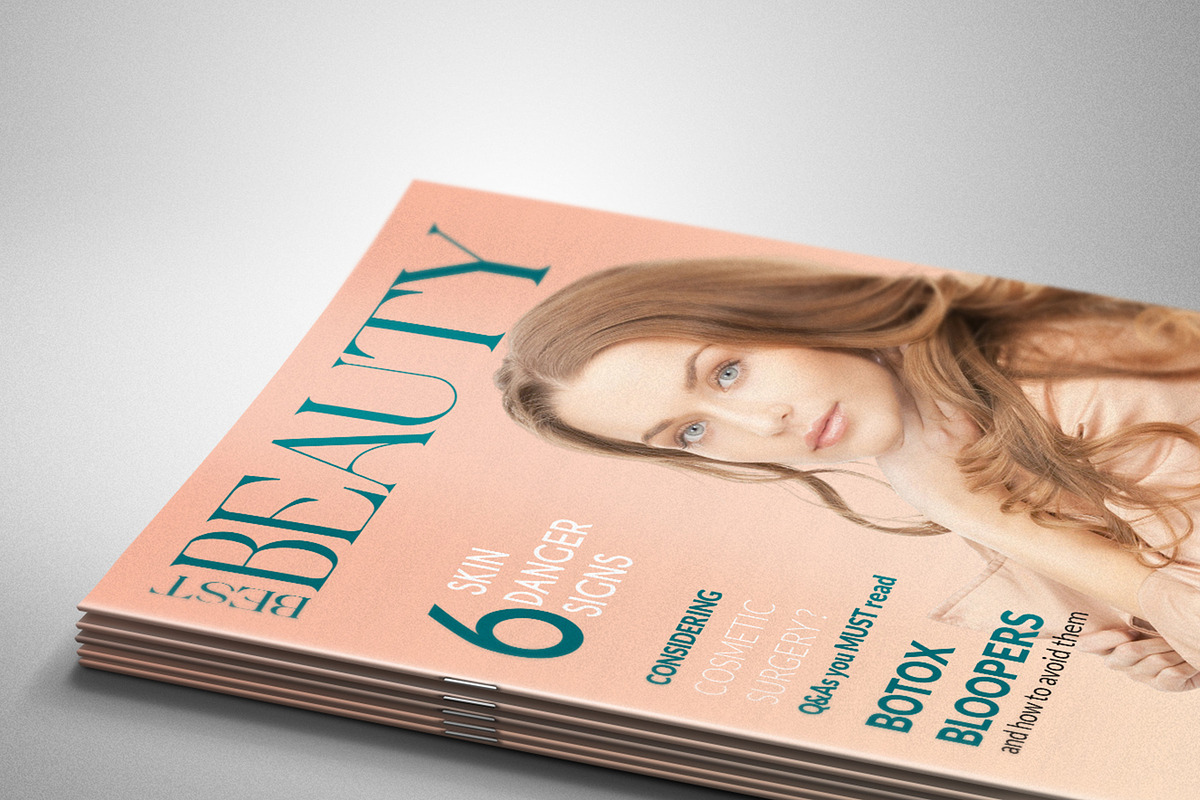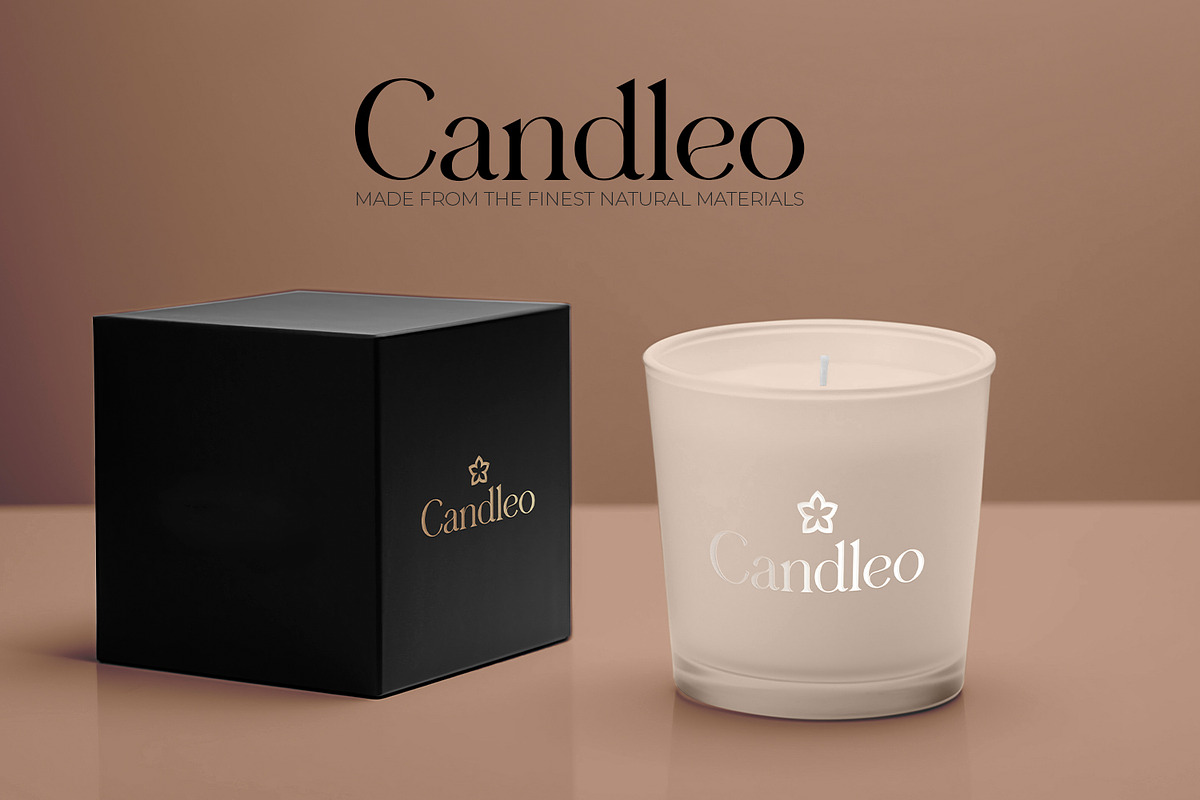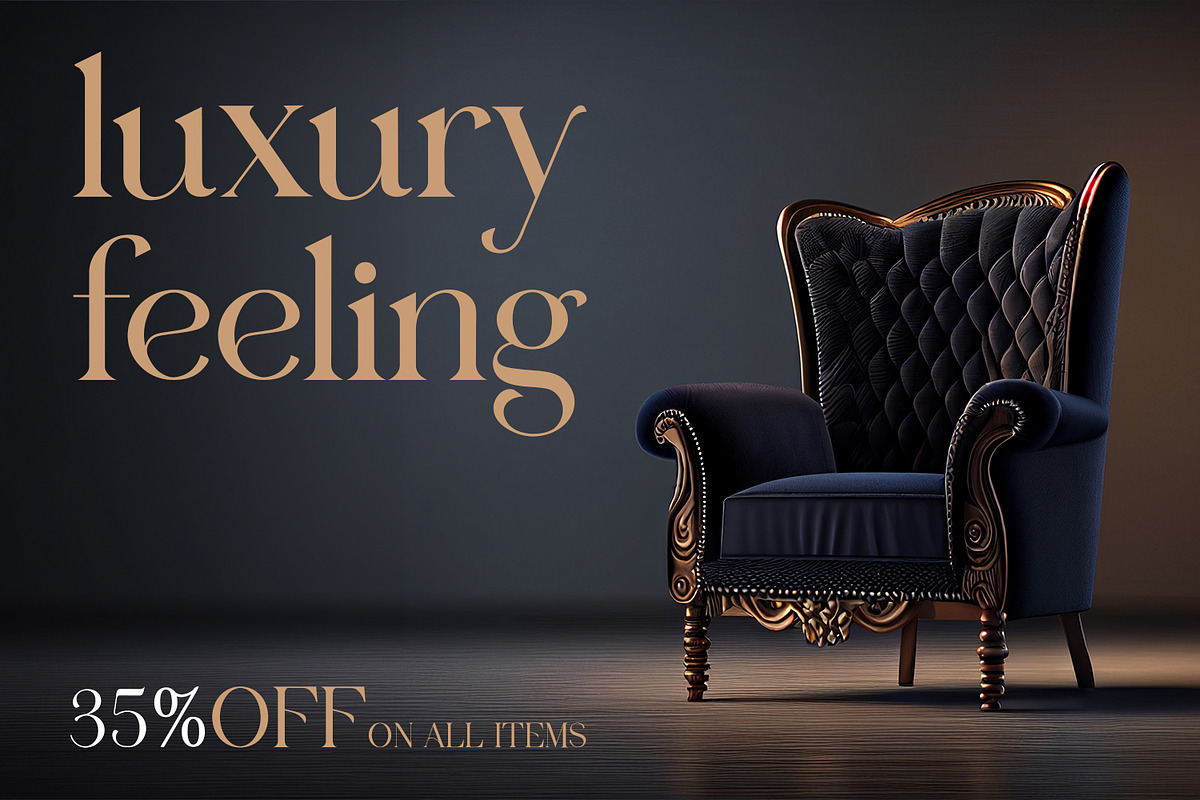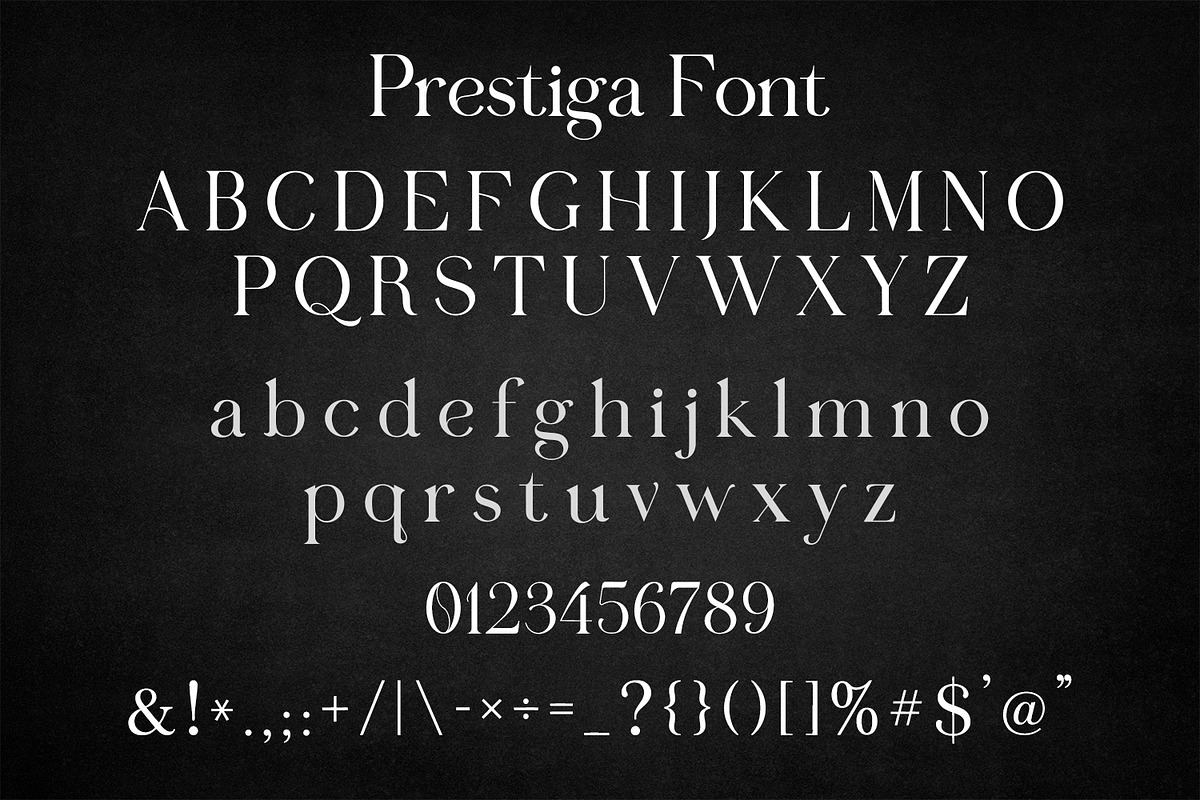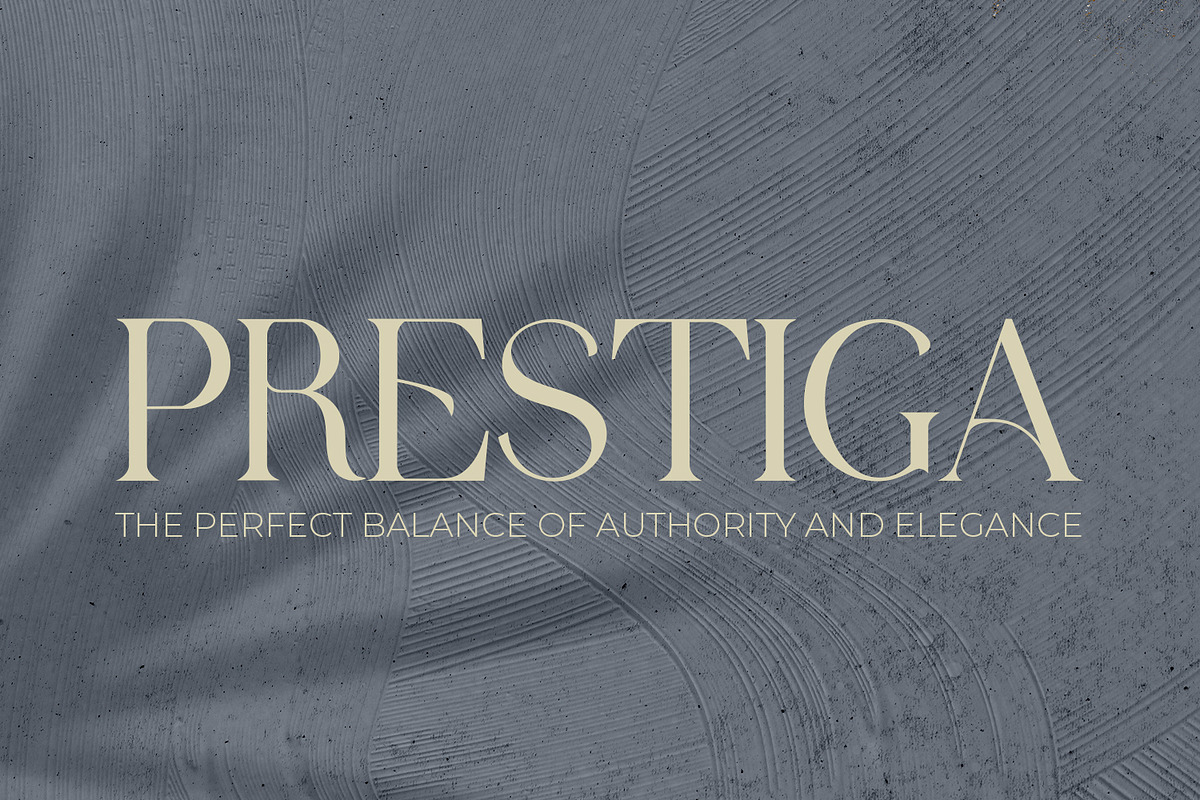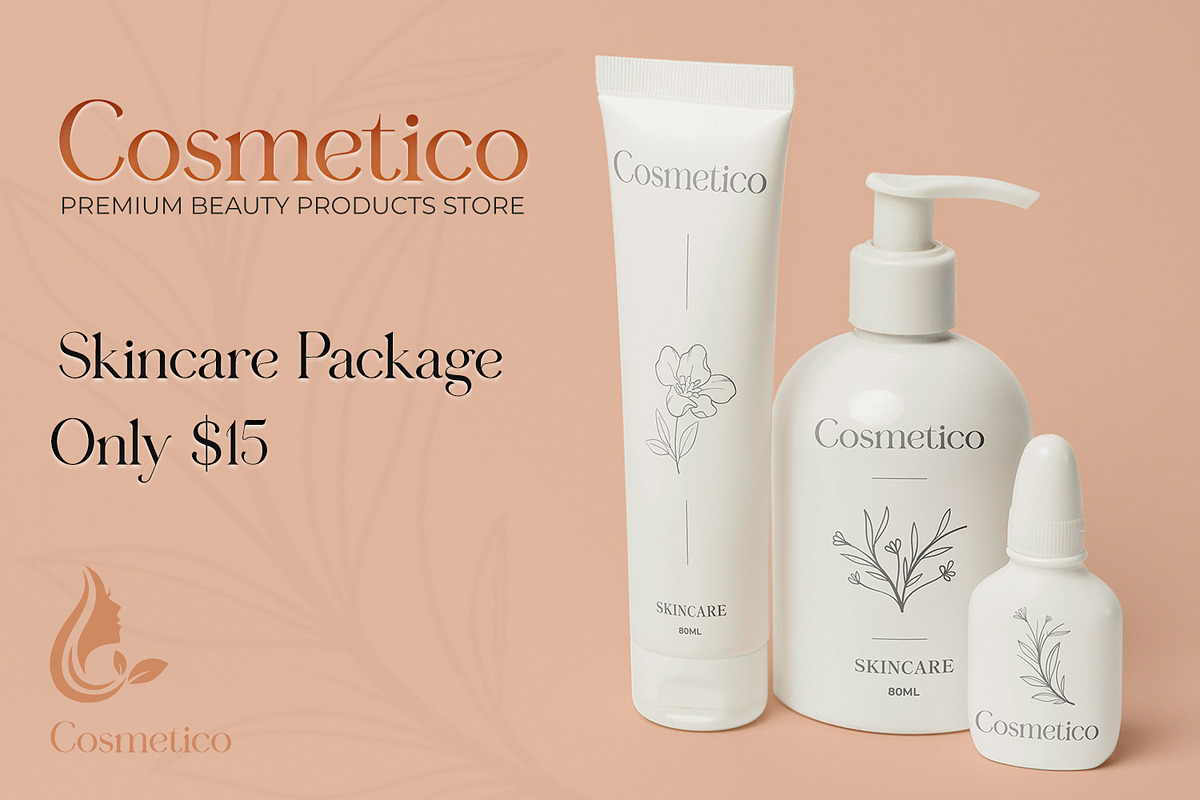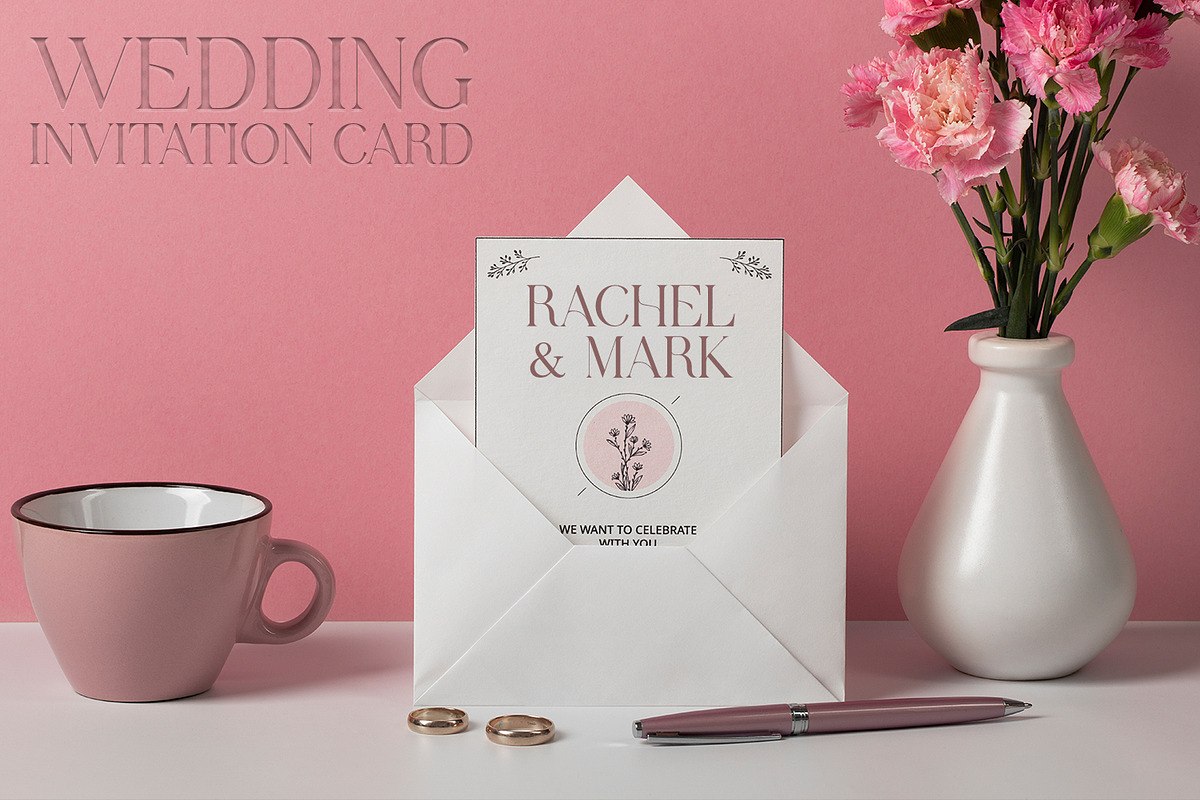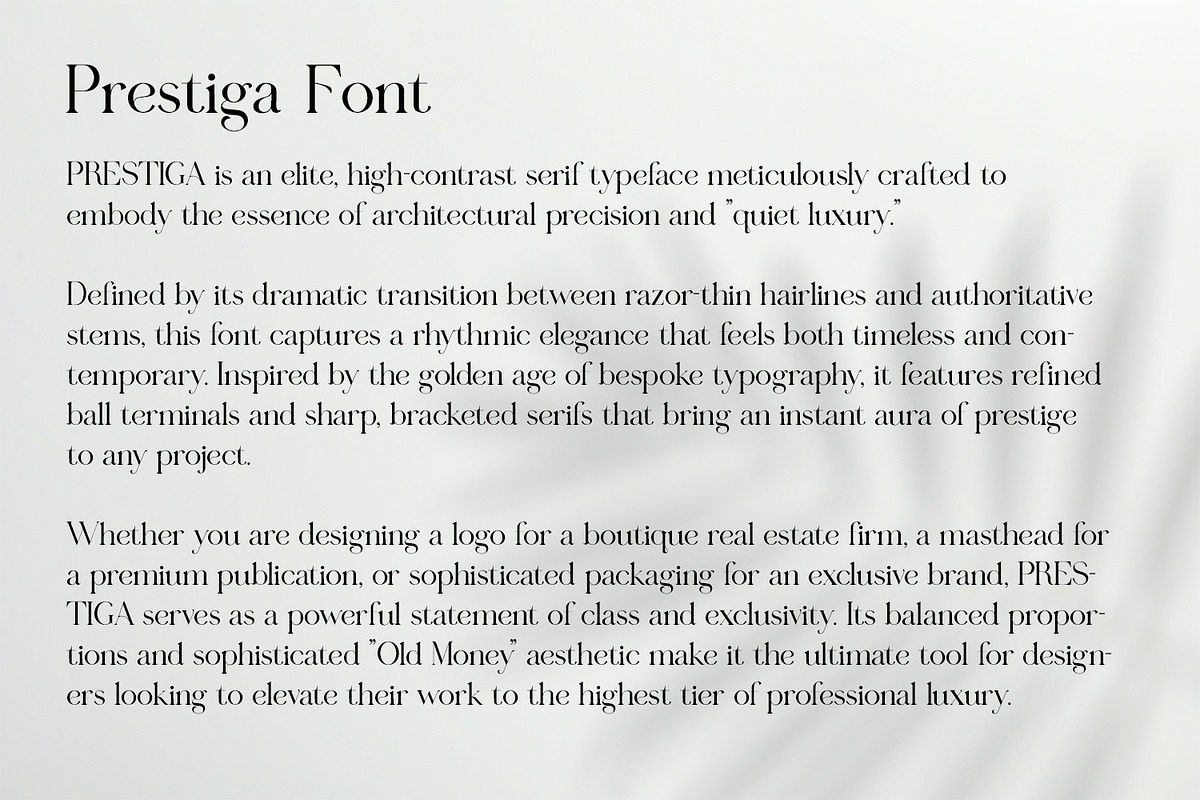
Prestiga | Elegant & Modern Display
Elevate your designs with Prestiga, a high-contrast serif typeface designed for ultimate sophistication. Combining architectural precision with a "quiet luxury" aesthetic, this font features dramatic transitions between razor-thin hairlines and authoritative stems.
Inspired by the golden age of bespoke typography, Prestiga is characterized by refined ball terminals and sharp, bracketed serifs. It is the perfect choice for designers looking to create a powerful statement of class and exclusivity. Whether you are crafting a high-end fashion logo, a premium magazine masthead, or luxury product packaging, Prestiga provides the perfect balance of authority and elegance.